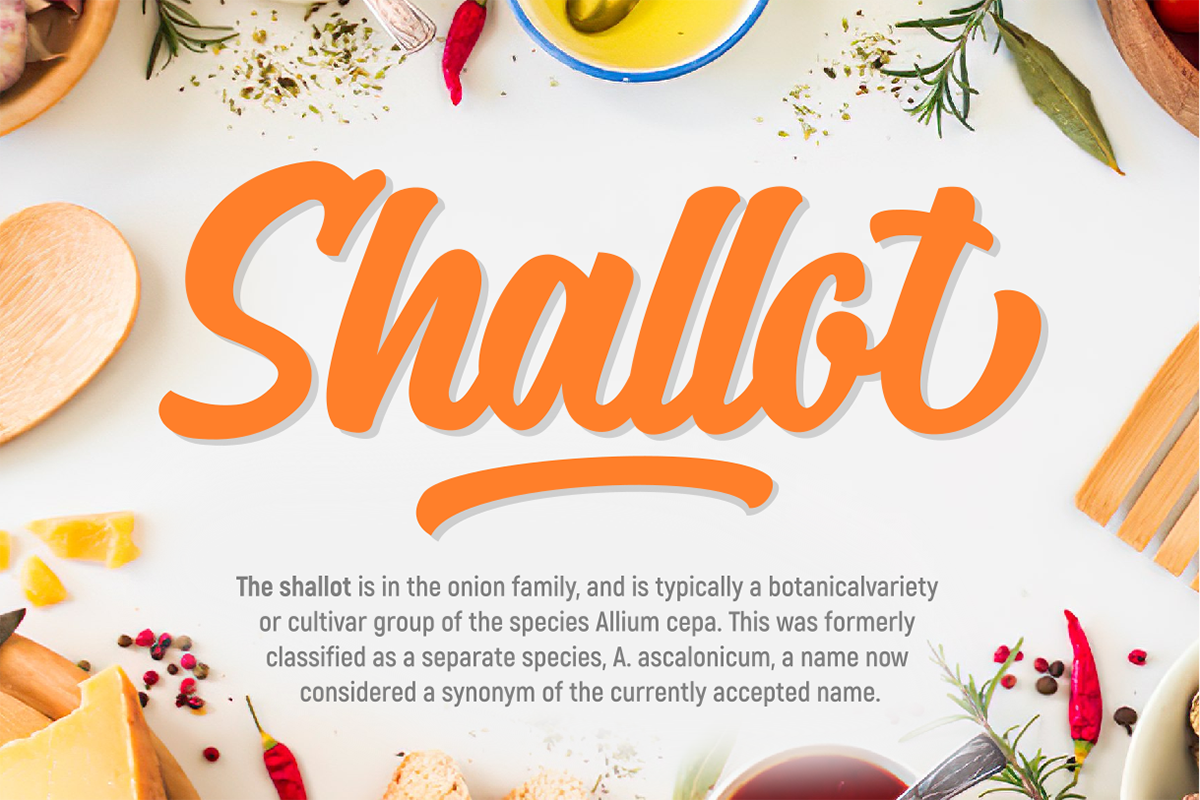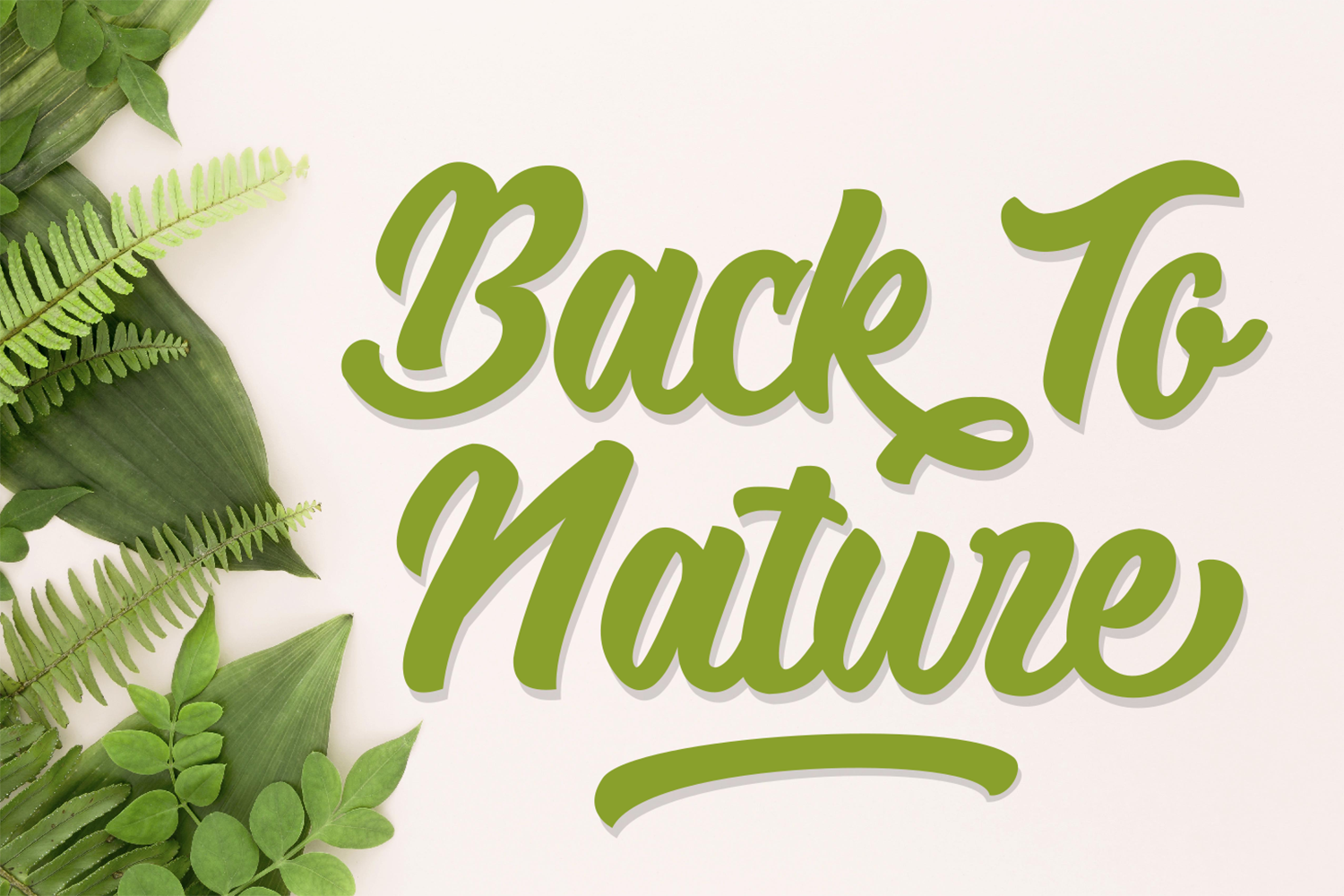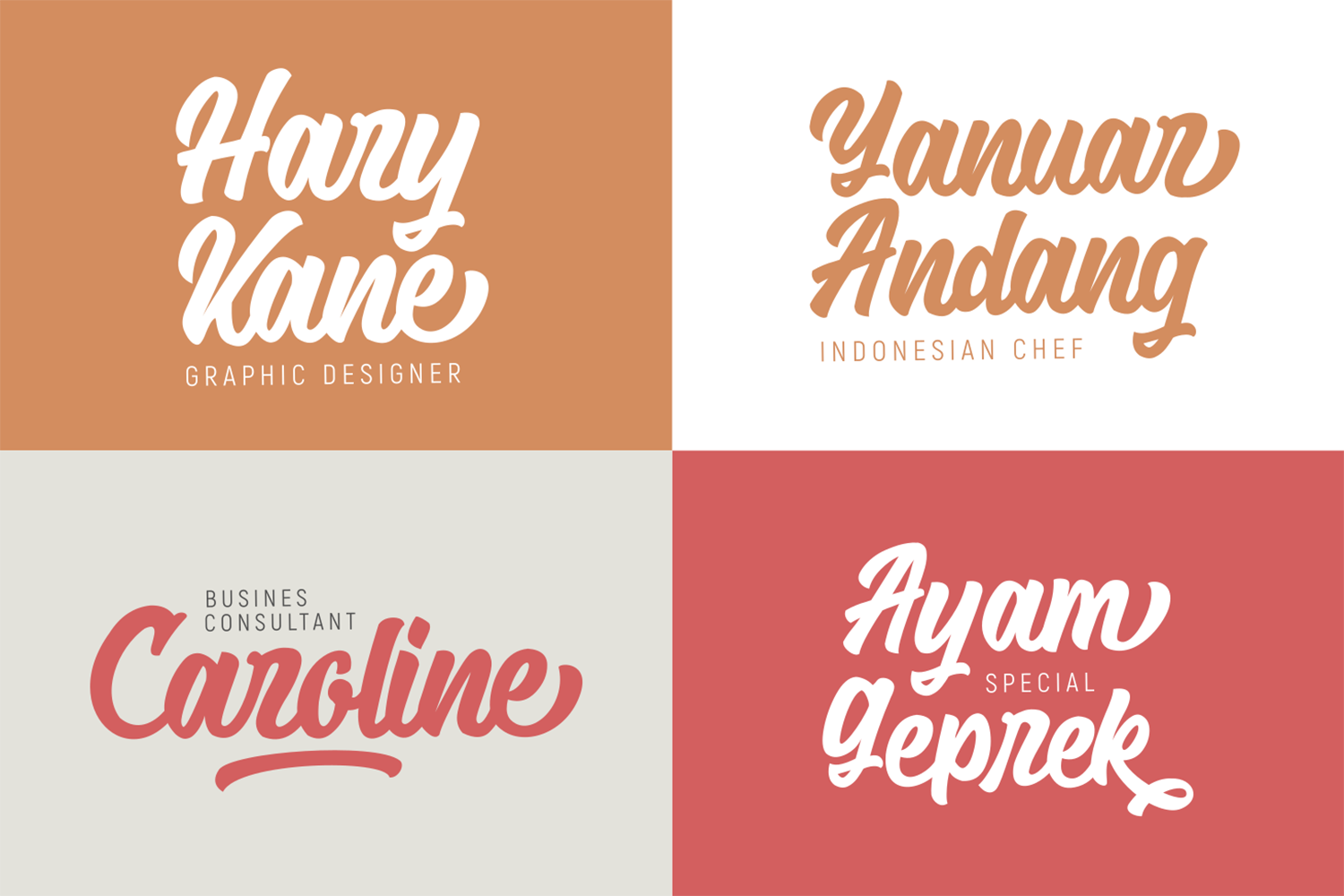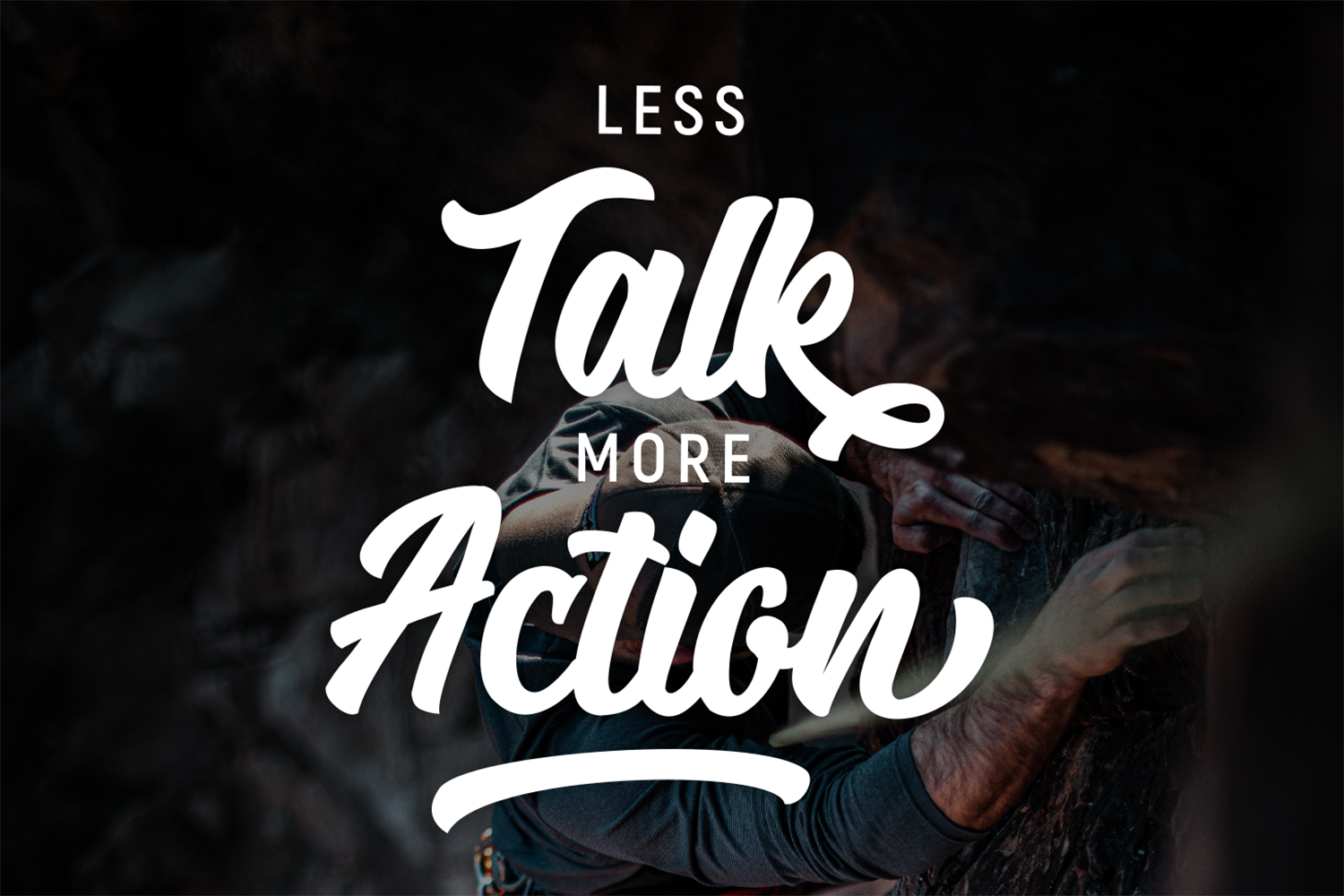
The Hungry Free Font
The Hungry Free Font has a bold and smooth style and is perfect for making any design stand out. Best suitable for branding, packaging, print titles, T-shirt design, food design, and similar projects. This free typeface was designed by talented Zeenesia Studio. If you like it don’t forget to check out the full version.